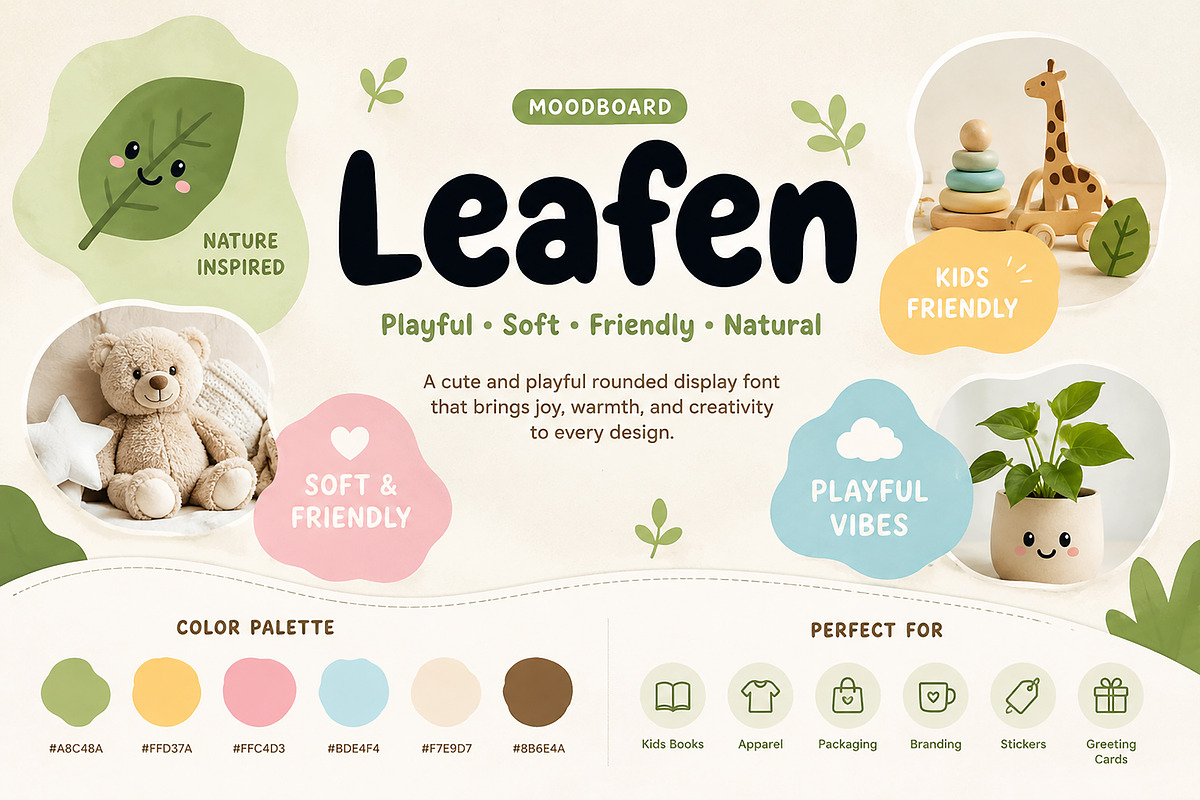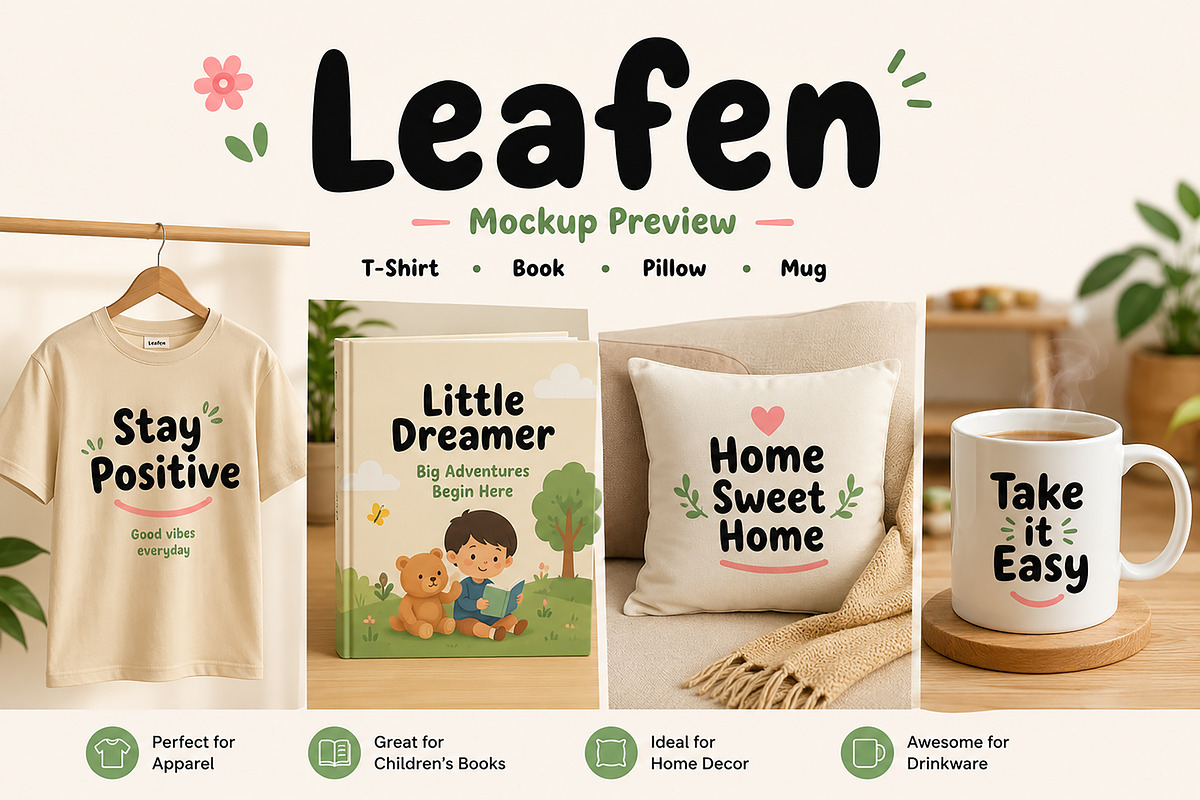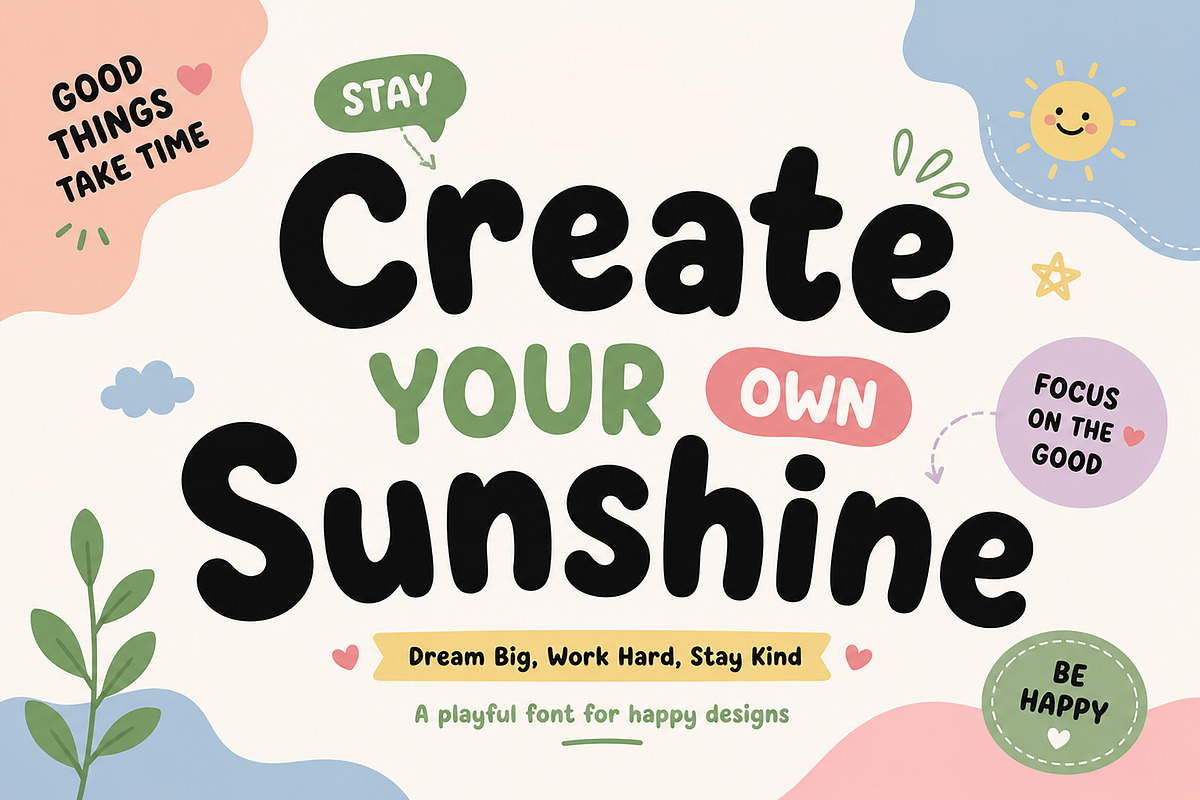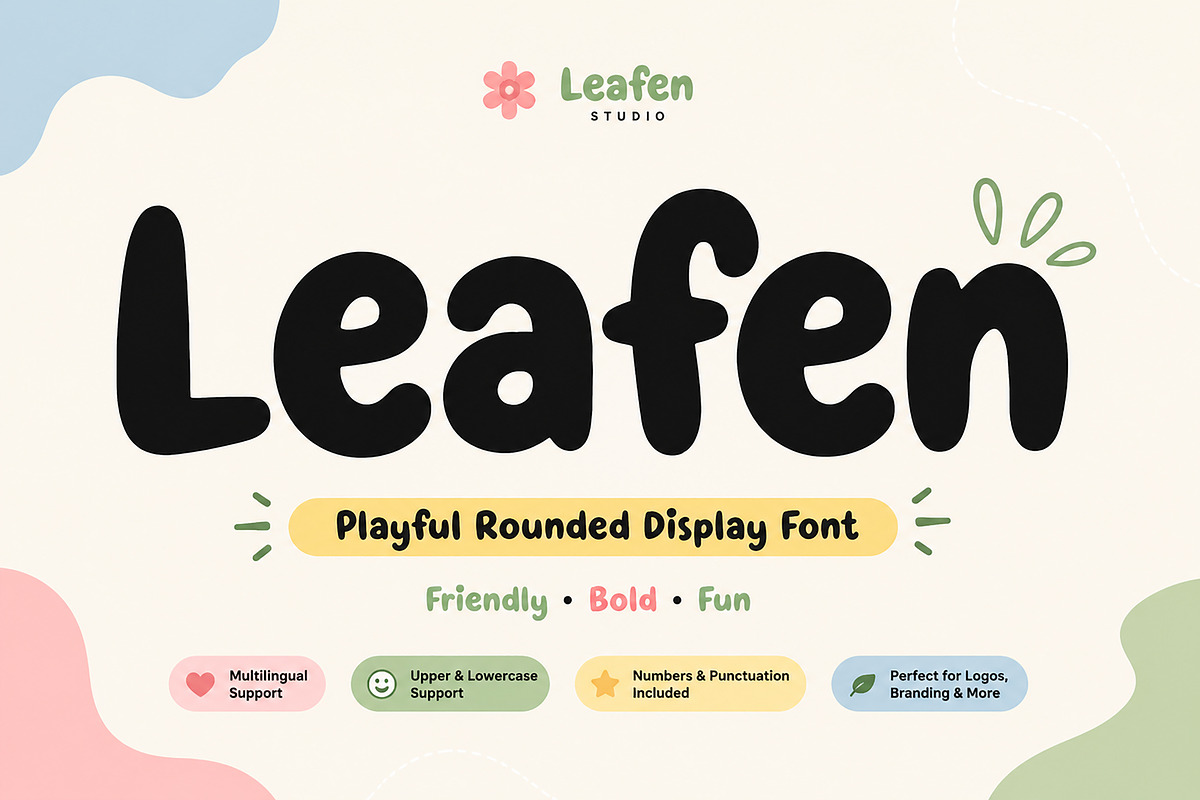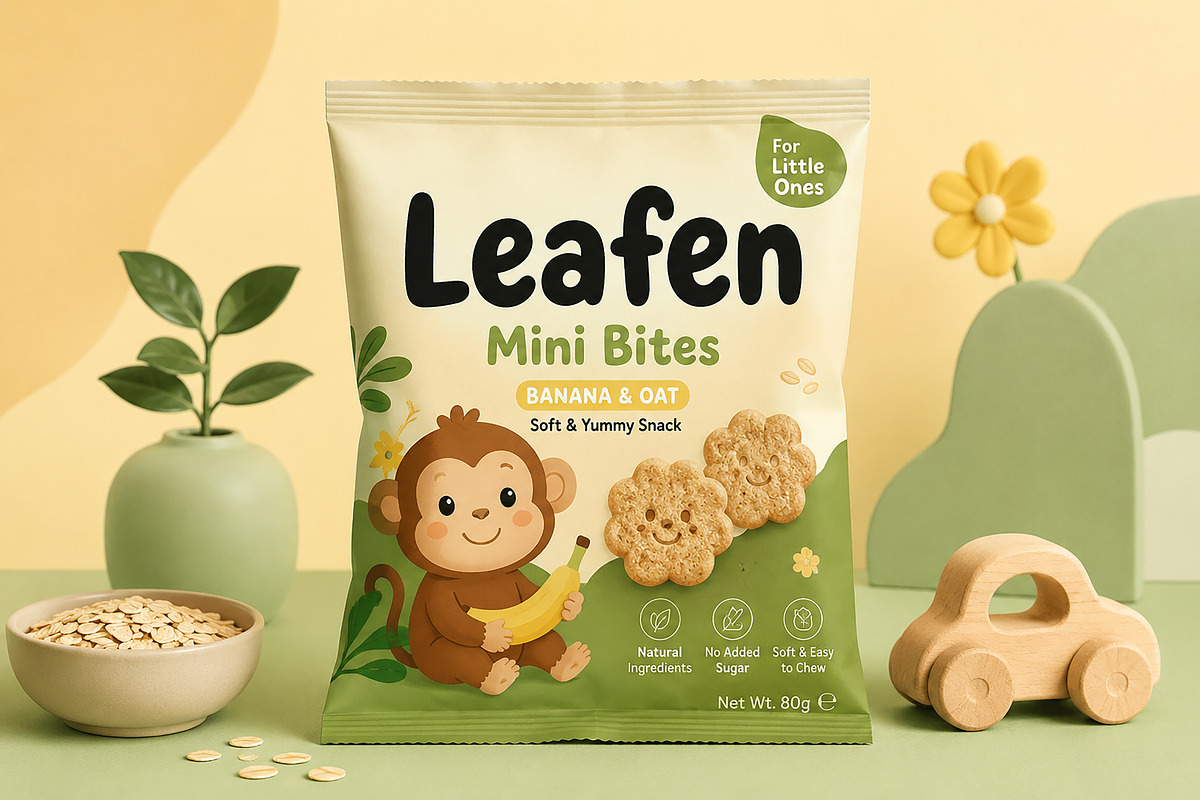
Leafen
Leafen – Playful Rounded Display Font
Leafen is a cute, bold, and playful rounded display font designed to bring warmth, fun, and personality into your creative projects. With its soft curves and handmade feel, Leafen is perfect for kids branding, packaging, book covers, logos, stickers, apparel, and cheerful social media designs.
Its friendly and organic letterforms make every design feel approachable, creative, and full of life.
Introducing Leafen, a playful rounded display font crafted with a soft handmade touch and a fun organic style.
Leafen was designed for creators who want to add a cheerful, warm, and friendly vibe to their projects. The bold rounded shapes make it highly readable while keeping a unique and charming personality.
This font works beautifully across a wide range of creative applications—from kids products and playful packaging to logos, posters, t-shirts, mugs, pillows, stickers, and social media graphics.
Its smooth curves and soft edges create a modern handmade aesthetic that feels natural, fun, and approachable.
• Kids branding
• Product packaging
• Book covers
• T-shirt designs
• Stickers
• Greeting cards
• Social media posts
• Logo design
• Posters
• Merchandising
• Home decor products
• Mug designs
• Pillow prints
• Uppercase letters
• Lowercase letters
• Numbers & punctuation
• Ligatures
• Alternates
Leafen is the perfect choice for designers looking for a playful, bold, and versatile font that adds personality to every project.